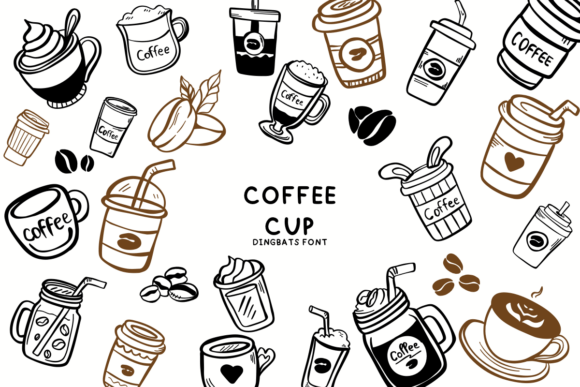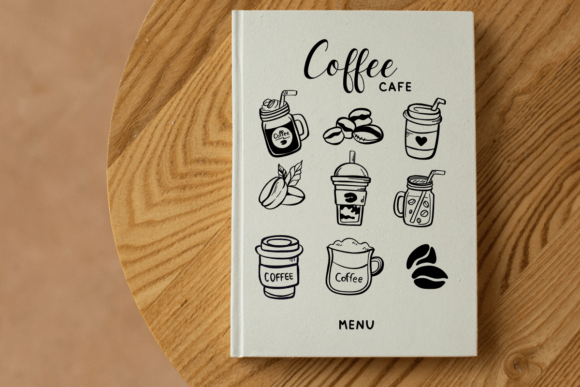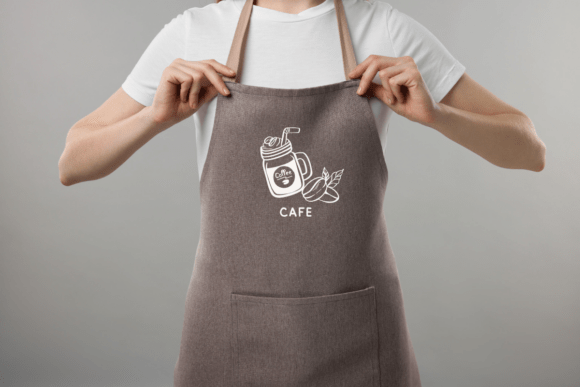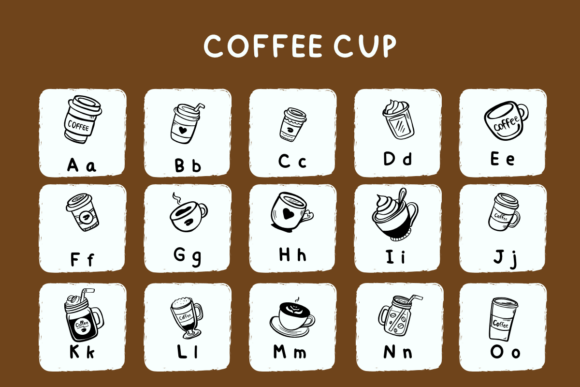
Coffee Cup Font
About the Coffee Cup Font
Elevate your designs with Coffee Cup Font, a font that combines sophistication with readability. Introducing Coffee Cup, an inspiring dingbats font, imagined and developed with a unique sketch style. Coffee Cup is a perfect choice to elevate your imaginative endeavors, infusing charm into your invitations, DIY projects, craft creations, decorations and logos. With Coffee Cup, you can effortlessly express your ideas with an artistic flair that captivates your audience. Its vintage allure makes it a winsome addition to any creative toolkit, promising to breathe life into your projects. Discover the potential of Coffee Cup, an essential font for the truly creative mind.
Coffee Cup Font Usage Examples
Coffee Cup Font Example